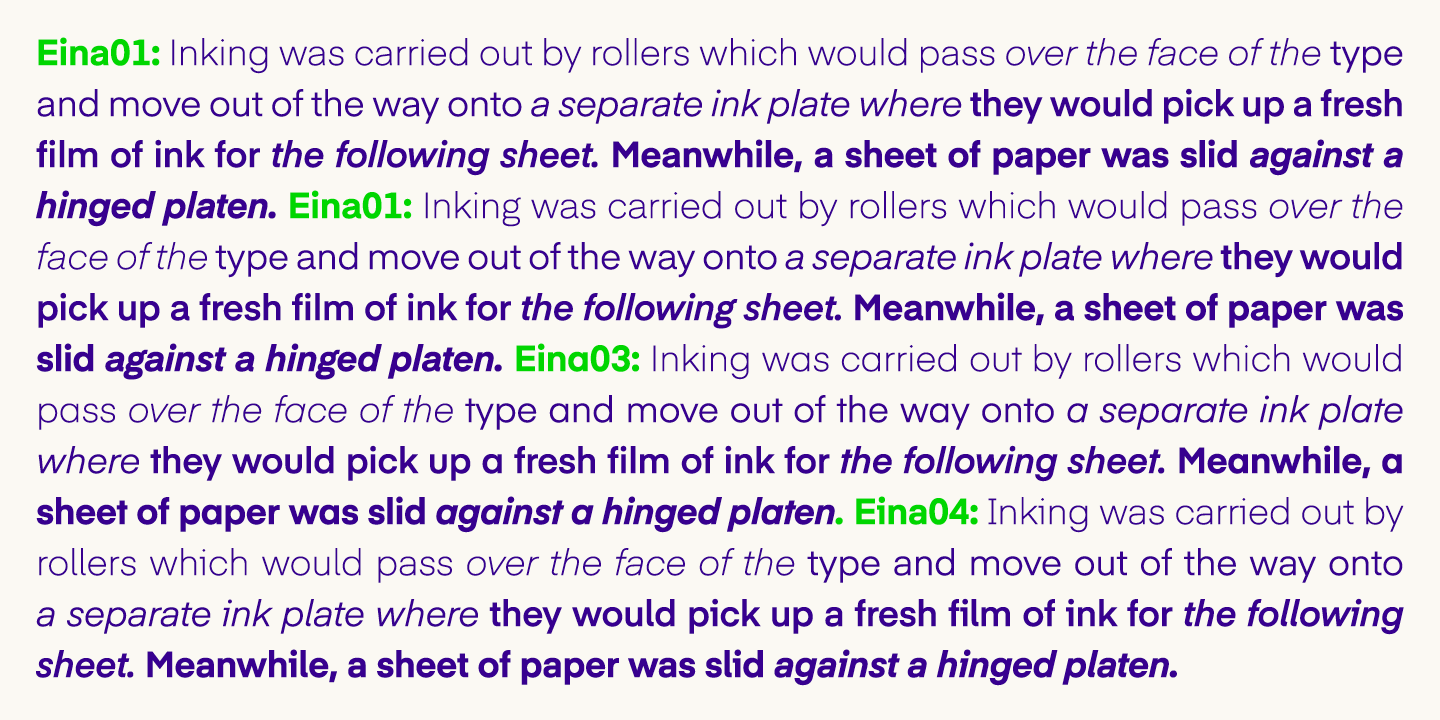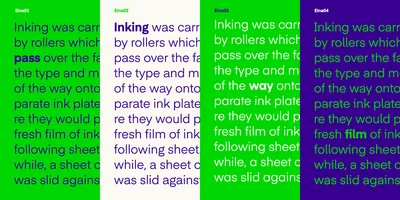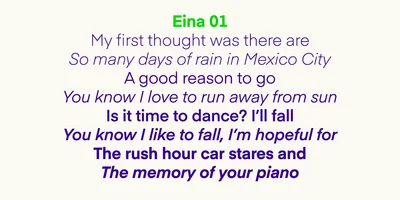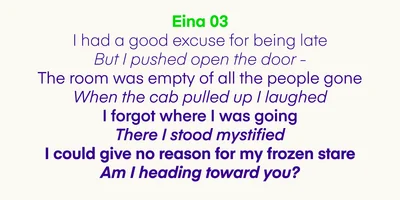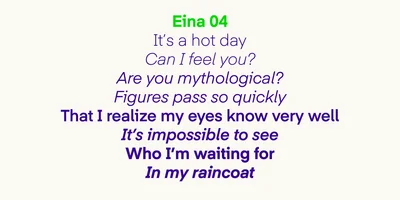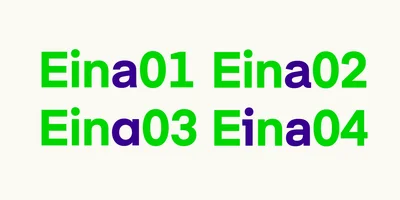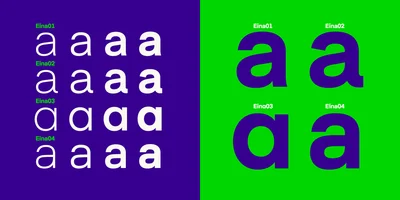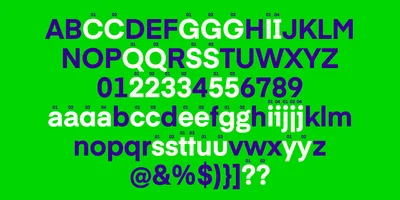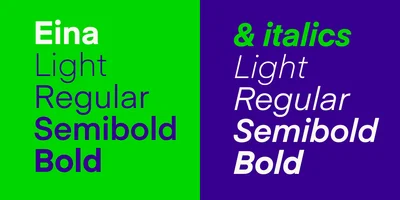
Cera Pro vs Eina
Cera Pro and Eina are both sans-serif typefaces sharing a geometric foundation. Where Cera Pro leans warm, Eina brings minimal. Compare which suits your Branding project.